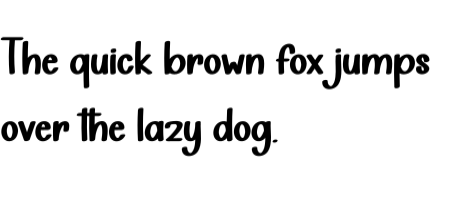
Little Girls Font: Elevate Your Design with Elegance and Charm
In the world of typography, fonts play a crucial role in conveying the tone and personality of a brand, product, or message. Among the numerous fonts available, Little Girls Font stands out for its unique blend of elegance, charm, and sophistication. This stylish font is designed to add a personal touch to various design projects, including invitations, branding, social media, and more. In this article, we’ll explore the features, benefits, and uses of Little Girls Font, and how it can elevate your design to the next level.
The Characteristics of Little Girls Font
Little Girls Font is a beautifully crafted font that exudes elegance and charm. Its fluid strokes and natural flow create a captivating, sophisticated look that is perfect for designs that require a touch of refinement. The font’s unique characteristics include:
- Fluid strokes: The font features smooth, flowing strokes that give it a dynamic and elegant appearance.
- Natural flow: The font’s natural flow creates a sense of movement and fluidity, making it perfect for designs that require a touch of sophistication.
- Elegant and charming: The font’s elegant and charming appearance makes it perfect for designs that require a touch of refinement and luxury.
The Benefits of Using Little Girls Font
Little Girls Font offers numerous benefits for designers, marketers, and businesses. Some of the key benefits include:
- Unique and distinctive: The font’s unique and distinctive appearance sets it apart from other fonts, making it perfect for brands that want to stand out.
- Versatile: The font is versatile and can be used for a wide range of design projects, including invitations, branding, social media, and more.
- Elegant and sophisticated: The font’s elegant and sophisticated appearance makes it perfect for designs that require a touch of refinement and luxury.
- Easy to read: The font is easy to read, making it perfect for designs that require a clear and concise message.
Uses of Little Girls Font
Little Girls Font is a versatile font that can be used for a wide range of design projects. Some of the most popular uses of the font include:
- Invitations: The font is perfect for creating elegant and sophisticated invitations for weddings, parties, and other events.
- Branding: The font can be used to create a unique and distinctive brand identity that sets a business apart from its competitors.
- Social media: The font can be used to create engaging and eye-catching social media graphics, posts, and stories.
- Advertising: The font can be used to create elegant and sophisticated advertisements that grab the attention of the target audience.
How to Use Little Girls Font
Using Little Girls Font is easy and straightforward. Here are some tips on how to use the font:
- Choose the right size: Choose a size that is easy to read and suits the design project.
- Pair with other fonts: Pair the font with other fonts to create a unique and distinctive look.
- Use it consistently: Use the font consistently across all design projects to create a cohesive brand identity.
- Experiment with colors: Experiment with different colors to find the one that suits the design project best.
Tips for Pairing Little Girls Font with Other Fonts
Pairing Little Girls Font with other fonts can create a unique and distinctive look. Here are some tips on how to pair the font:
- Pair with a sans-serif font: Pairing the font with a sans-serif font can create a nice contrast and add visual interest to the design.
- Pair with a script font: Pairing the font with a script font can create a elegant and sophisticated look.
- Pair with a bold font: Pairing the font with a bold font can create a nice contrast and add emphasis to the design.
Little Girls Font is a stylish and elegant font that can add a personal touch to various design projects. Its fluid strokes and natural flow create a captivating, sophisticated look that is perfect for designs that require a touch of refinement. With its versatility, elegance, and charm, Little Girls Font is a great choice for designers, marketers, and businesses looking to elevate their design to the next level.
- What is Little Girls Font?: Little Girls Font is a stylish font that exudes elegance and charm.
- What are the characteristics of Little Girls Font?: The font features fluid strokes, natural flow, and an elegant and charming appearance.
- What are the benefits of using Little Girls Font?: The font is unique and distinctive, versatile, elegant and sophisticated, and easy to read.
- How can I use Little Girls Font?: The font can be used for invitations, branding, social media, advertising, and more.